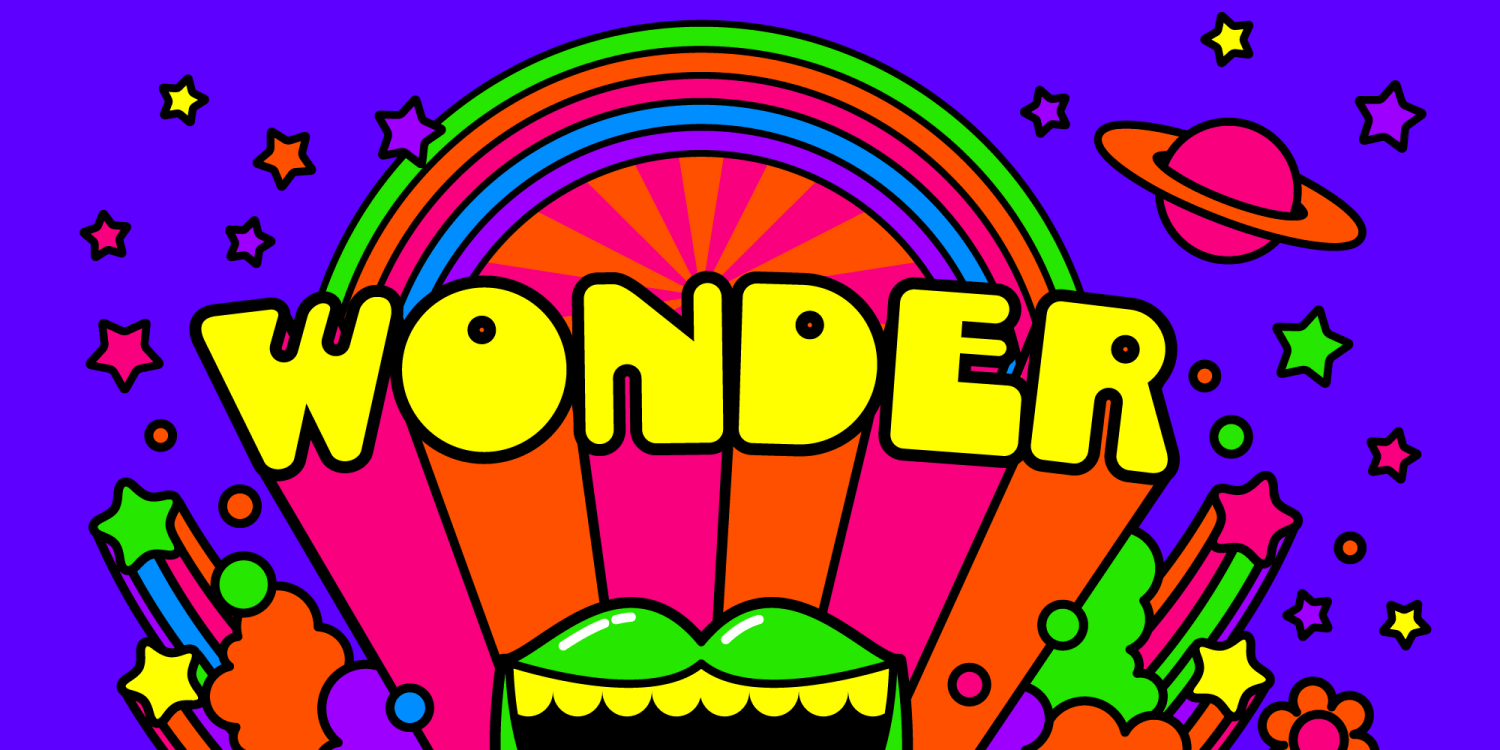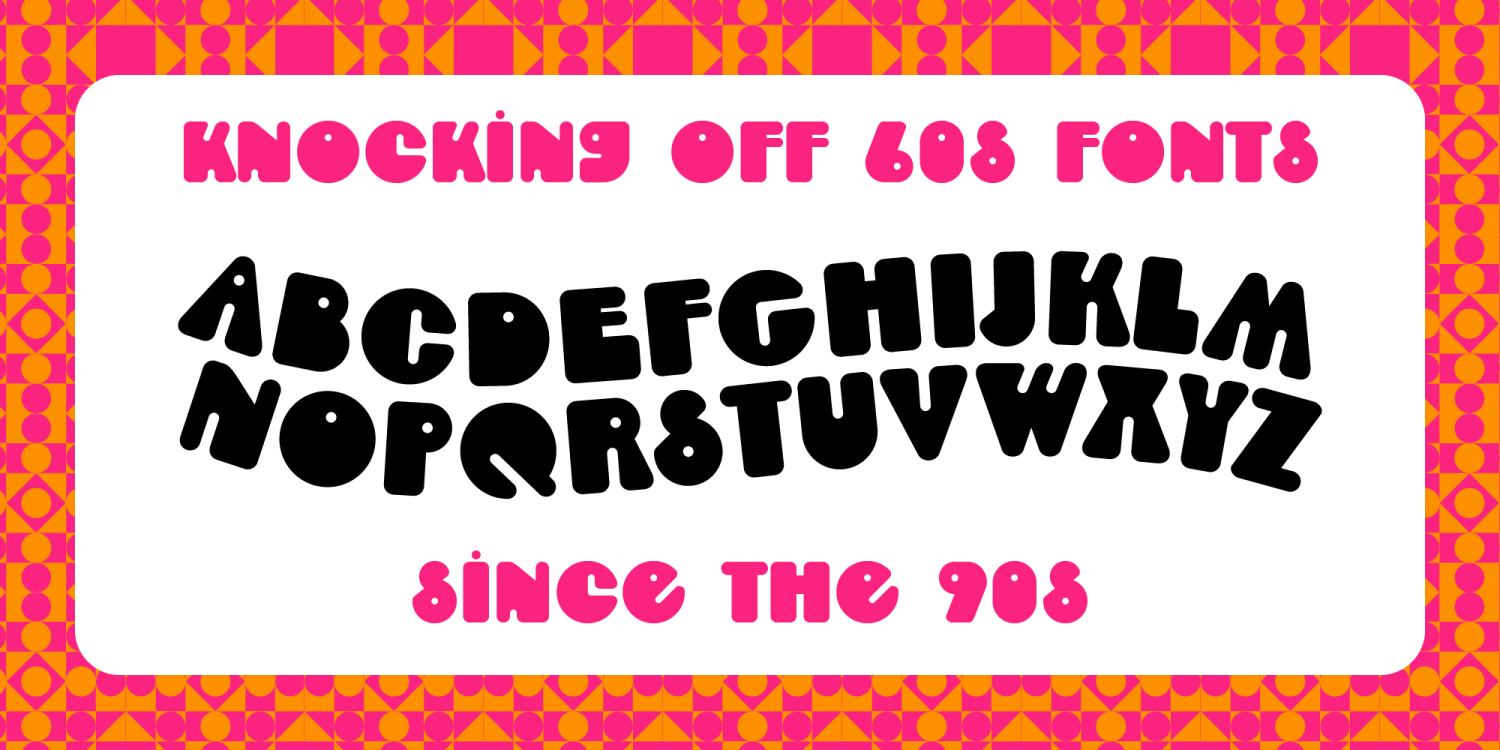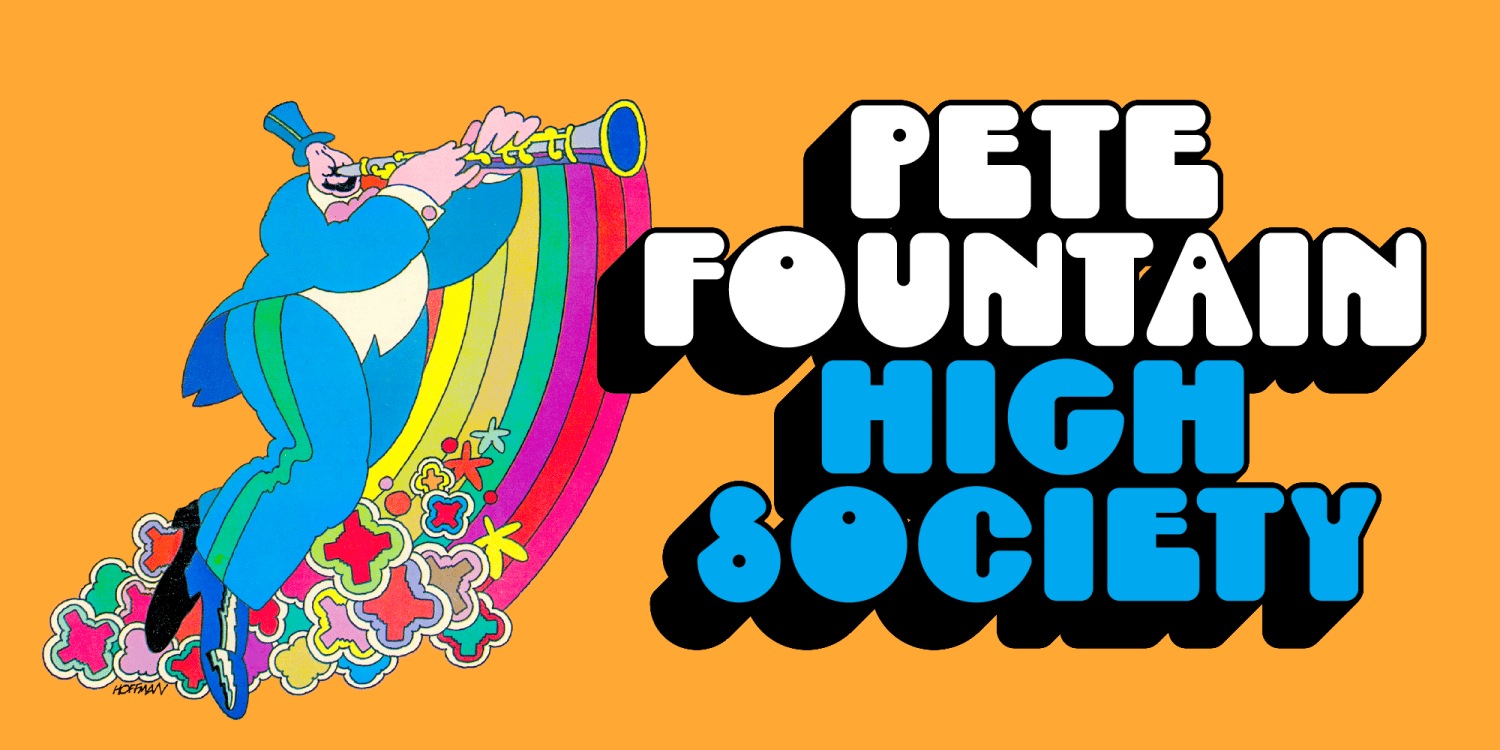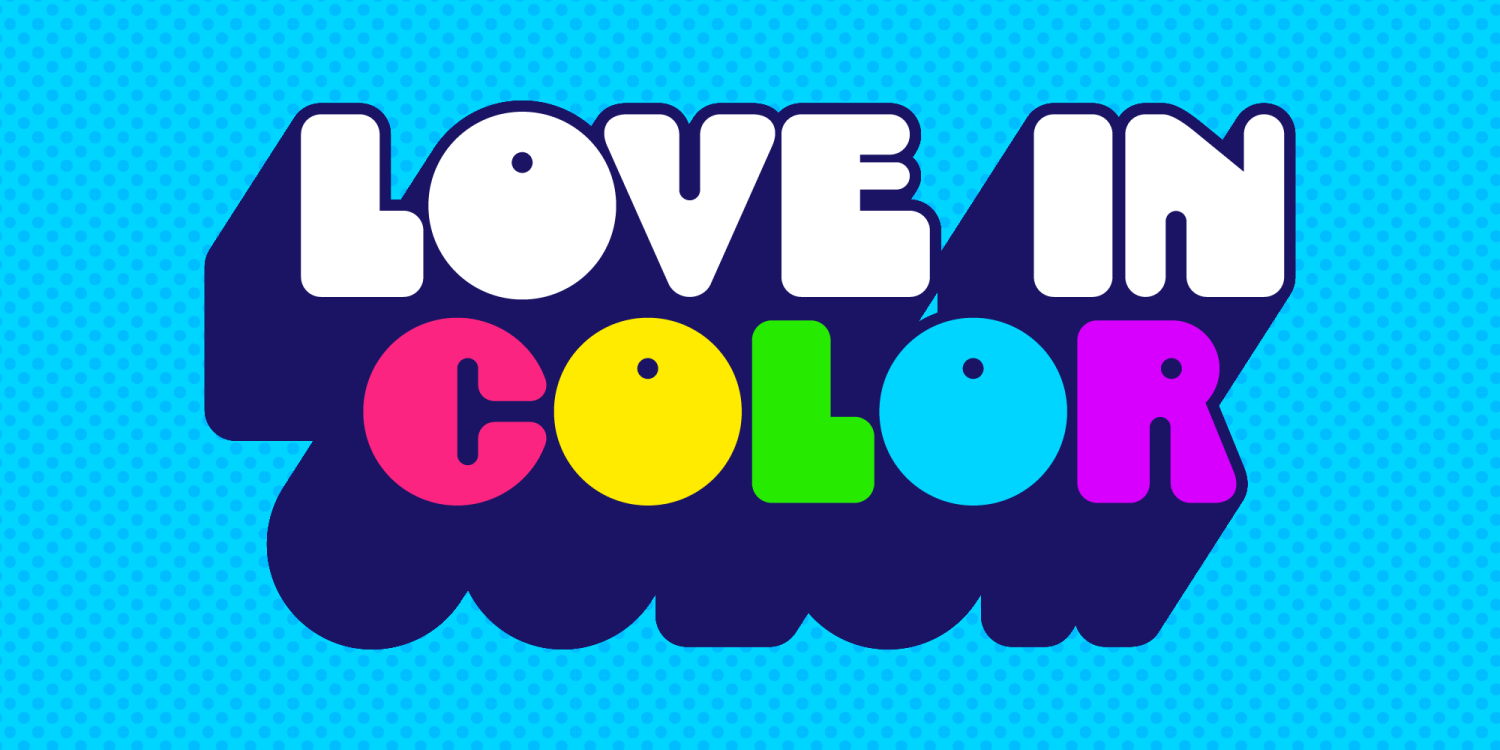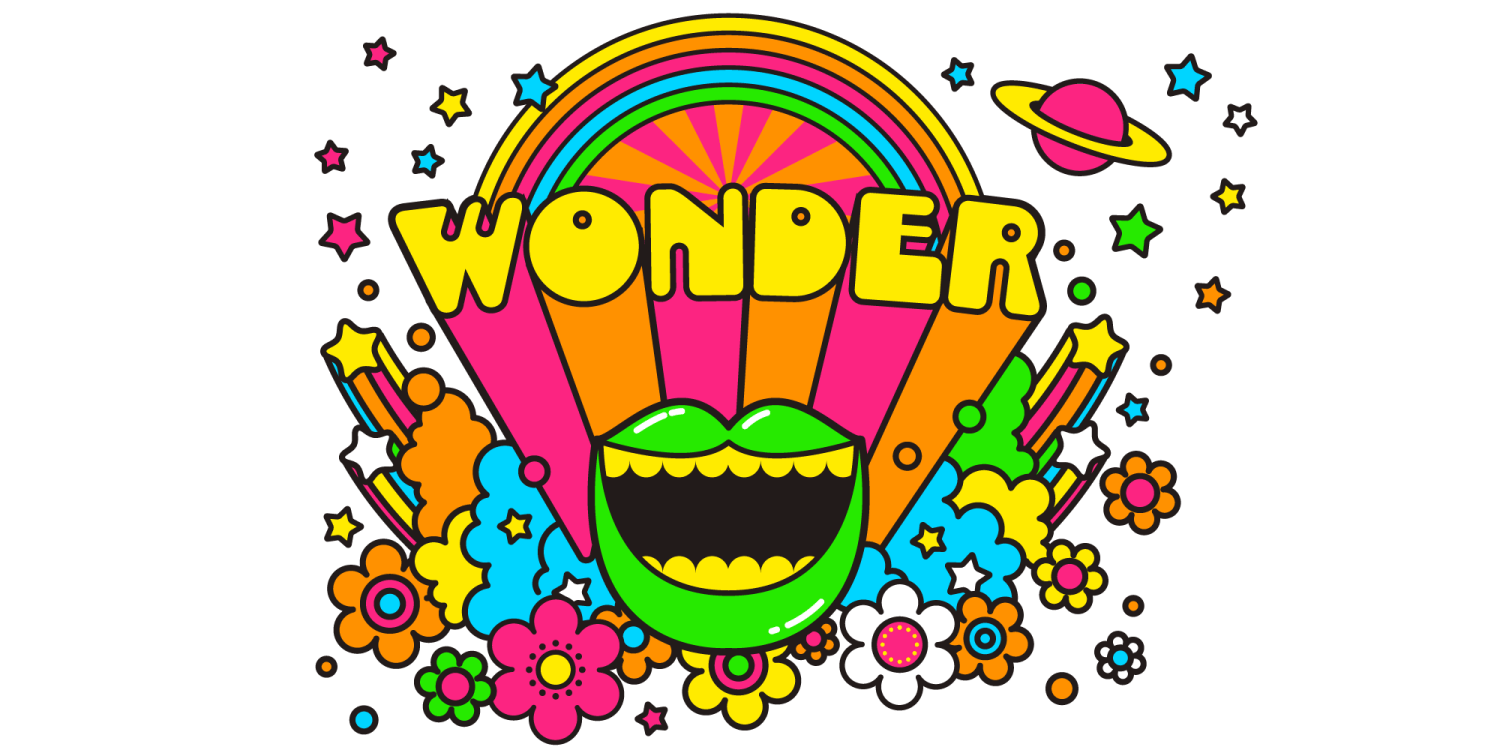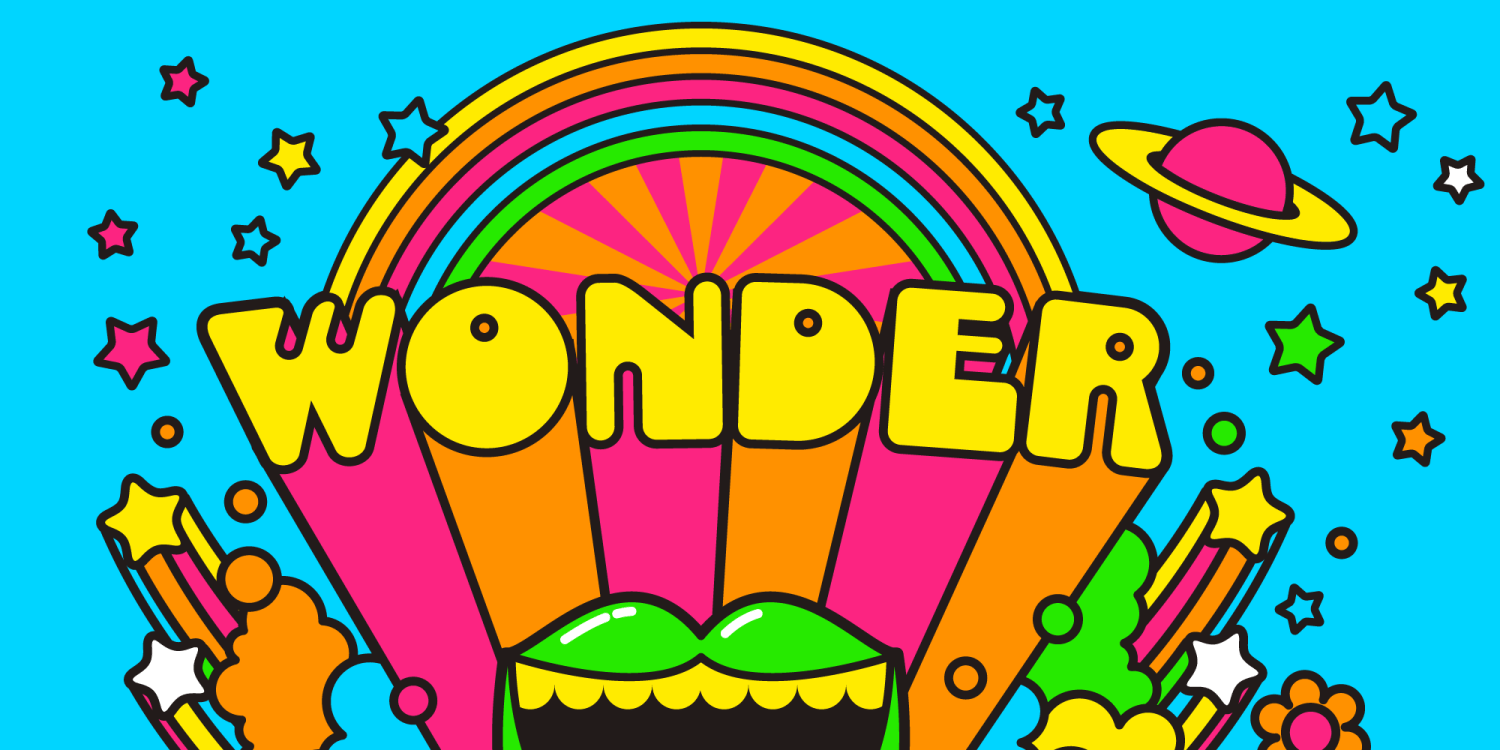
If you are a big fan of 1960's pop art, you'll probably really get a kick out of this super spacey psychedelic typeface. It says "I'm fun, but I'm still pretentious, and also I'm from the future." I think when Peter Max was using this style of font on most of his work, he was thinking to himself "I need a font that looks really poppin', something baller that pimps out my graphics." Hey, he used this font, and look what happened to him. He's famous.